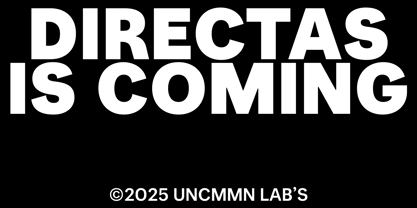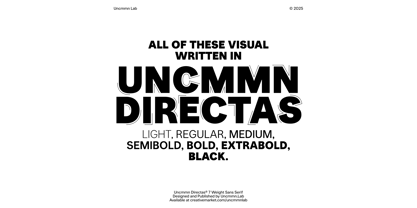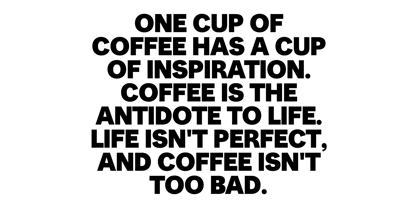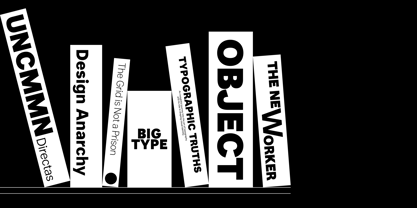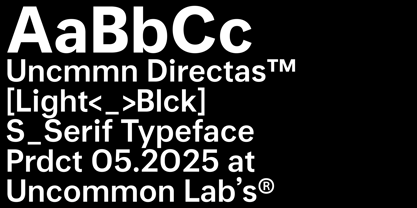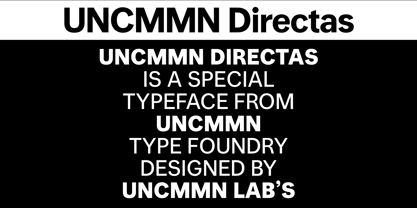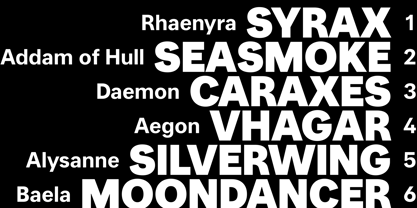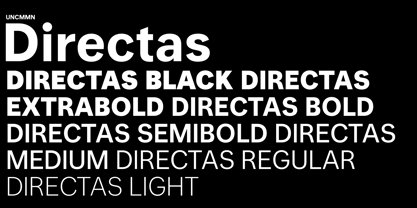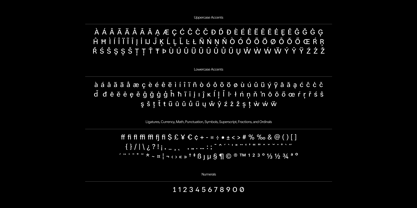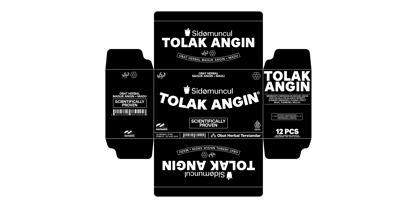
UNCMMN Directas
por Uncmmn Lab
La familia tipográfica UNCMMN Directas fue diseñada por Wahyu Ichsan Fauzi y publicada por Uncmmn Lab. UNCMMN Directas contiene 7 estilos y opciones de paquete familiar. Más información sobre esta familia
UNCMMN Directas is a sharp and expressive sans serif typeface designed for impact and clarity. With high contrast, angular cuts, and a confident rhythm, Directas brings a bold personality to headlines, branding, and editorial layouts. Its dynamic structure reflects a sense of urgency and directness—hence the name—while maintaining strong legibility. The typeface strikes a balance between functionality and attitude, making it ideal for projects that demand a modern, edgy, and unmistakable visual voice.